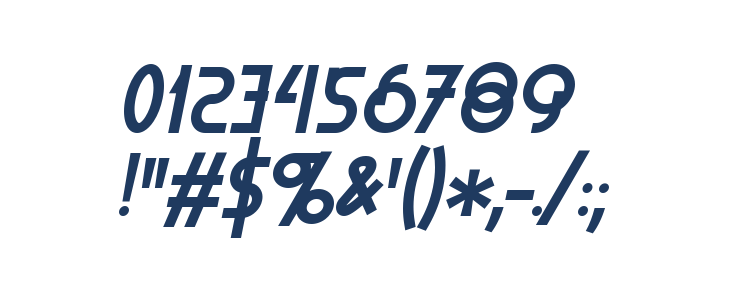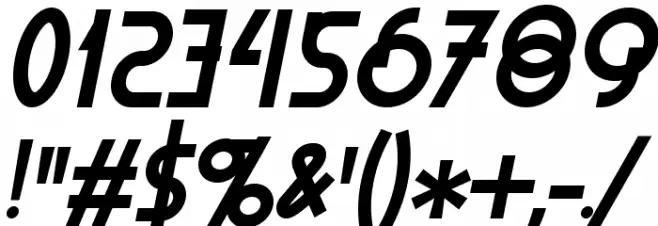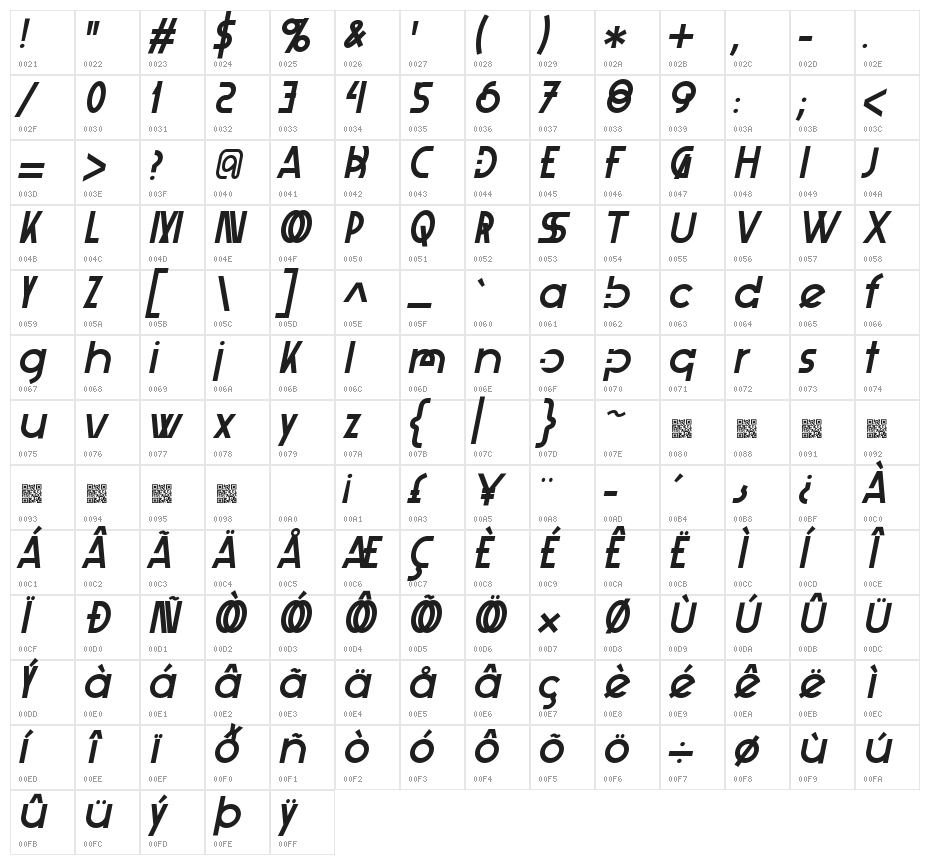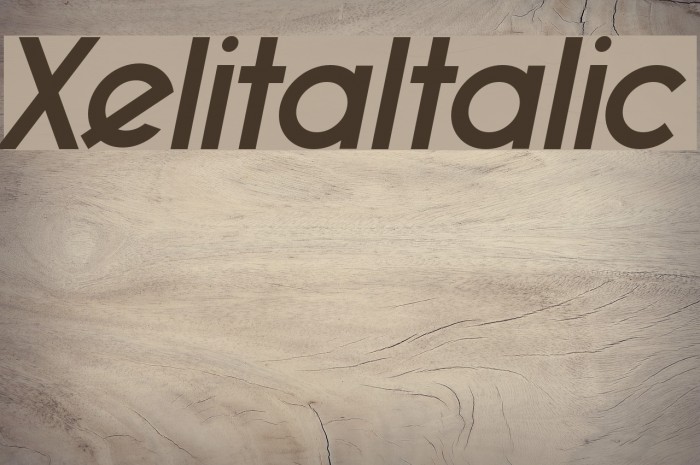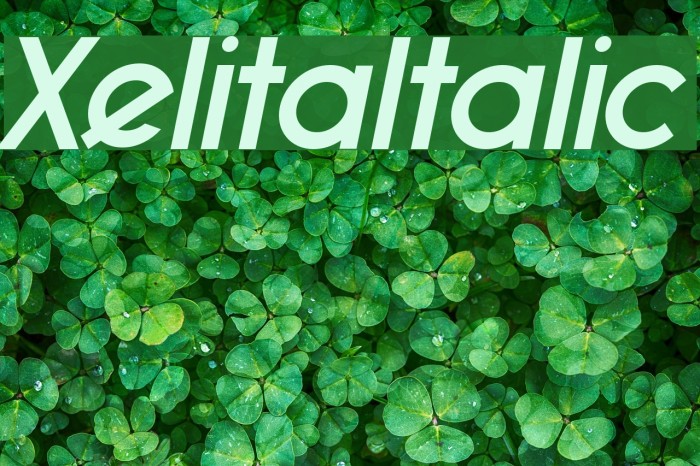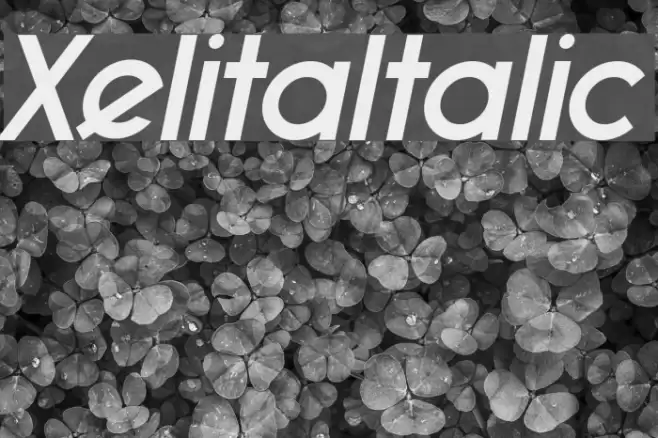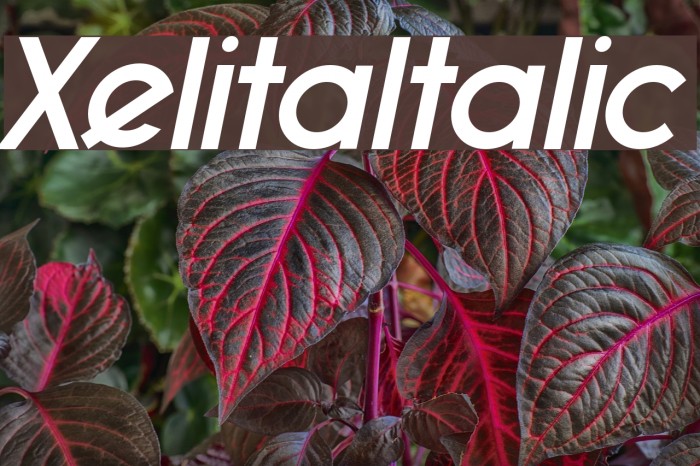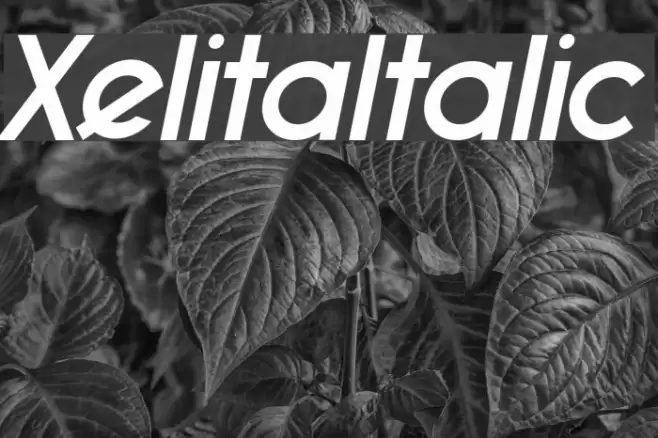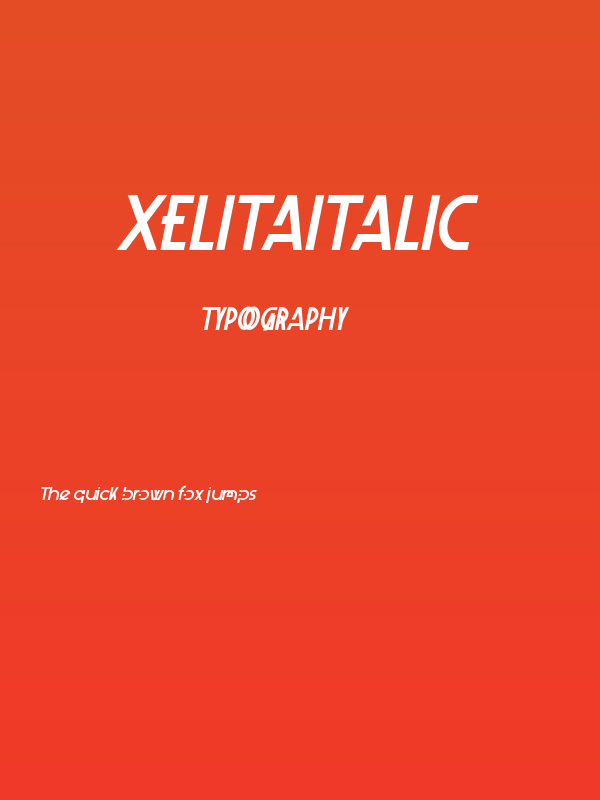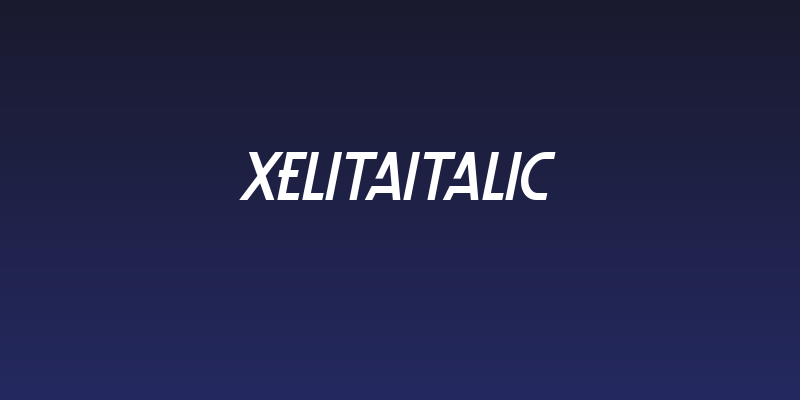
XelitaItalic Font
XelitaItalic Description
This font features a bold and dynamic style with a distinct italic slant, giving it a sense of motion and energy. The characters are designed with a modern flair, incorporating unique geometric elements and sharp angles that create a futuristic appearance. The uppercase letters are particularly striking, with some characters featuring unconventional cuts and curves that enhance their visual impact. The lowercase letters maintain a consistent style, complementing the uppercase with their own subtle quirks. Numbers and special characters are crafted to match the overall aesthetic, ensuring a cohesive look across all text elements.
| Overall Style | Futuristic, Dynamic |
| Proposed Projects | Ideal for branding projects, futuristic designs, tech-related graphics, and eye-catching headlines. |